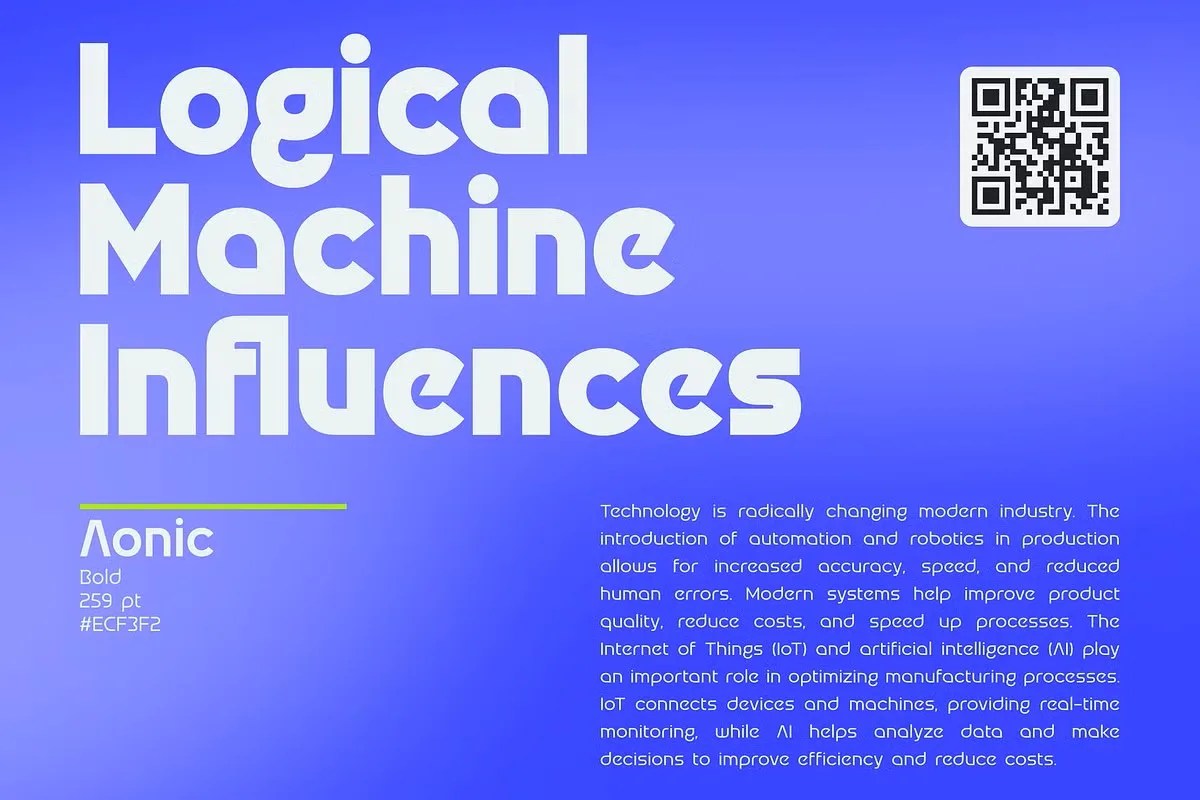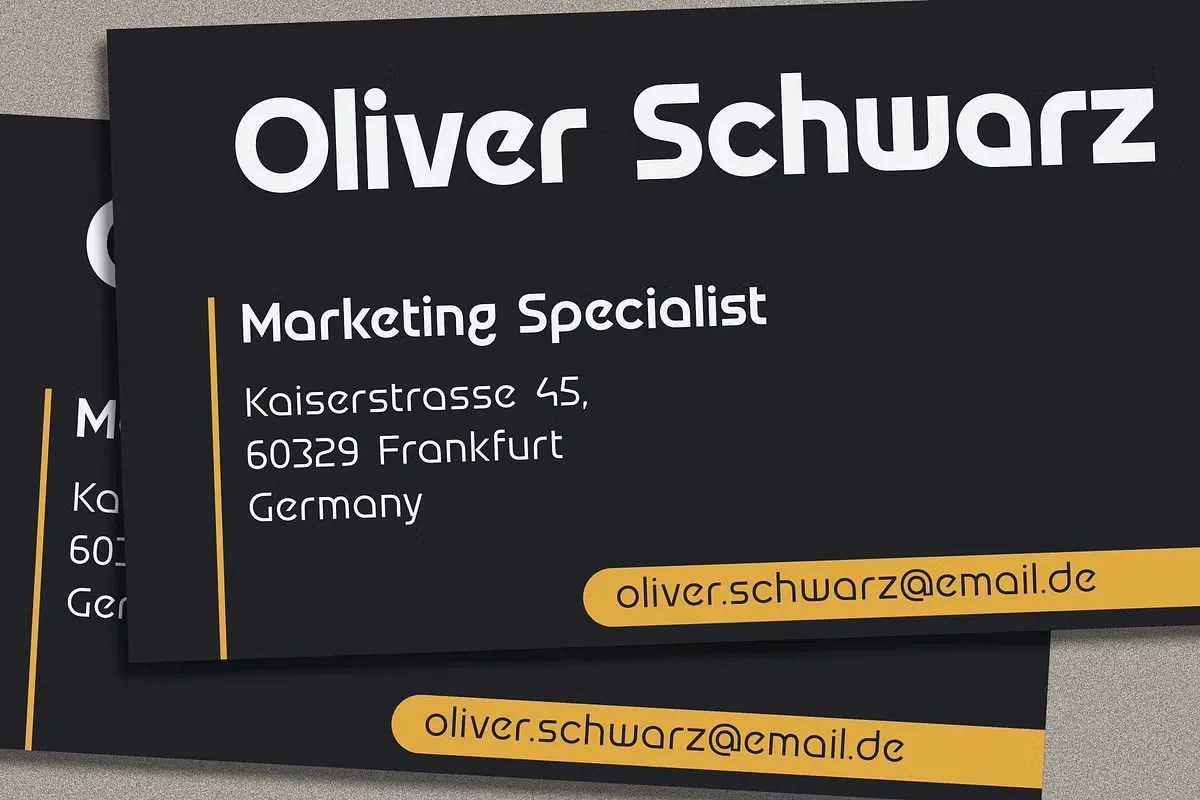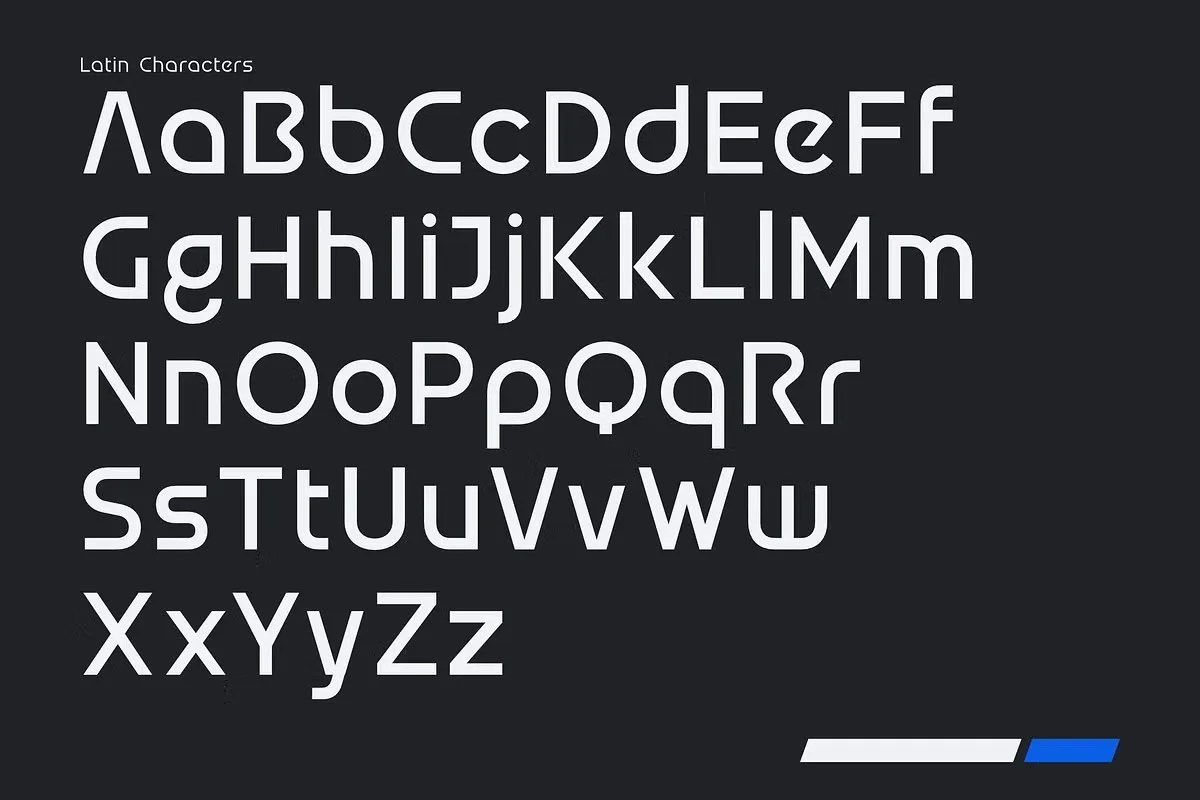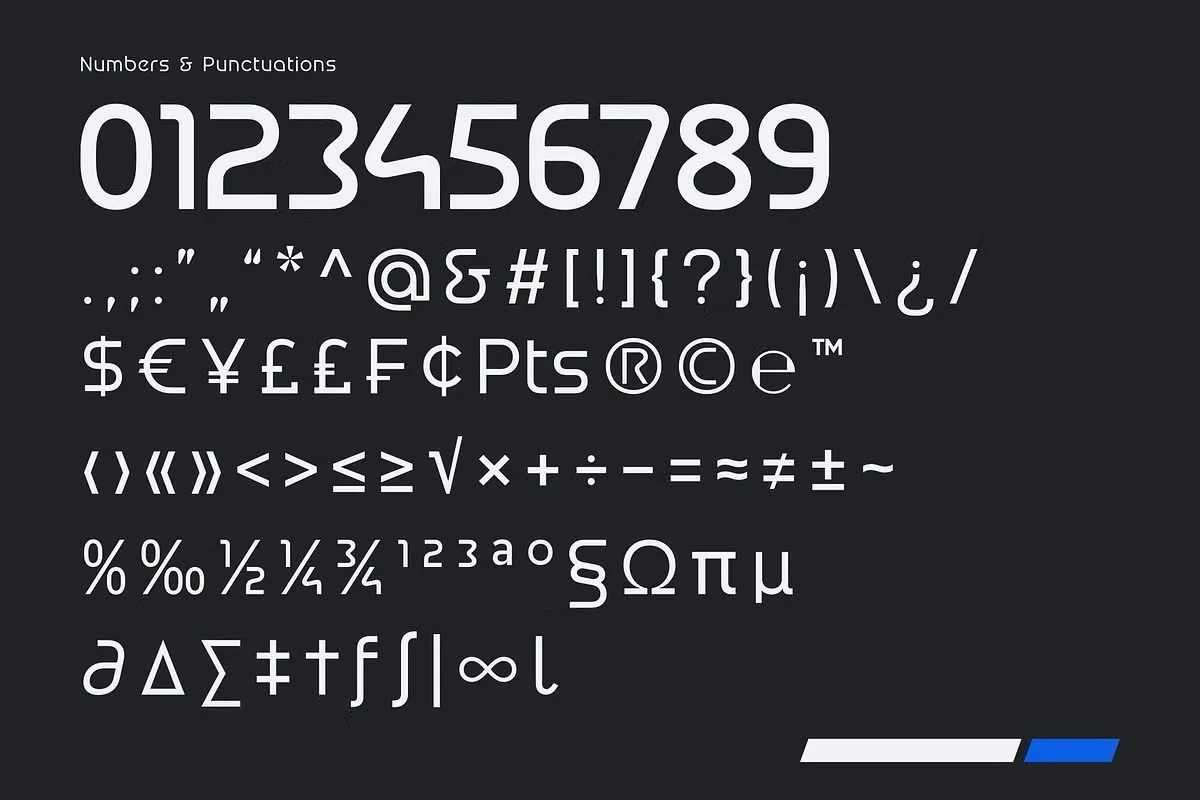
Aonic VF by Sign Studio. This is a cutting-edge variable sans serif font that offers incredible flexibility to designers. A single, efficient font file gives you access to a huge spectrum of styles. You can smoothly transition between light, regular, bold, and everything in between. Aonic VF puts you in complete control of your design’s typography, allowing for a level of precision that traditional fonts cannot match.
Aonic VF is built for the needs of today’s dynamic design projects. For example, its variable nature is perfect for responsive web and app design. You can adjust the font’s properties as the screen size changes, ensuring perfect readability on any device. In addition, motion graphics artists will love the ability to animate the font’s weight and width. This creates stunning and dynamic text effects for videos and presentations. This variable sans serif font is also an ideal choice for complex branding systems that require a wide range of styles for different applications.
• Modern variable sans serif style
• Includes a full range of weights in one file
• Smoothly transition between styles
• Contains uppercase, lowercase, numbers, & punctuation
• Ideal for UI/UX, motion graphics, and branding